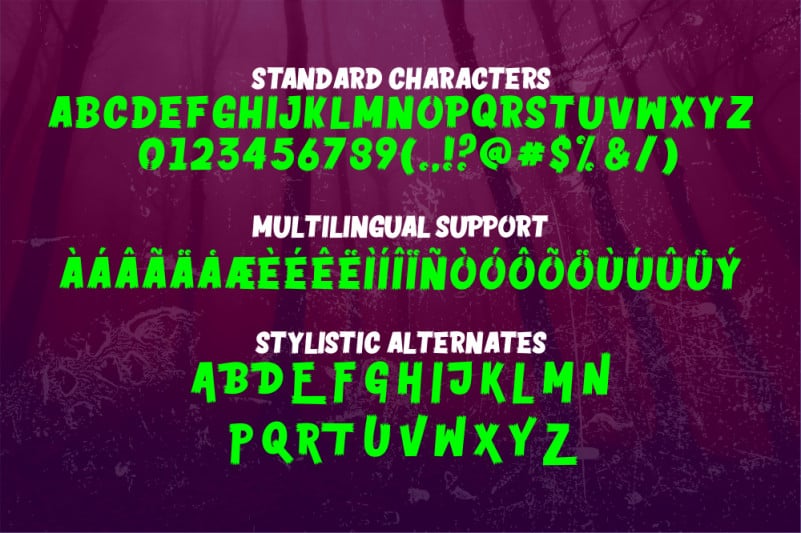
Horror Vision Display Font
Horror Vision Display Font is a bold and unique display typeface. Add this font to your creative ideas and notice how it makes them stand out!
Horror Vision Display Font is perfect used for photography, watermark, social media posts, advertisements, logos & branding, invitation, product designs, label, stationery, wedding designs, product packaging, special events or anything that need handwriting taste.